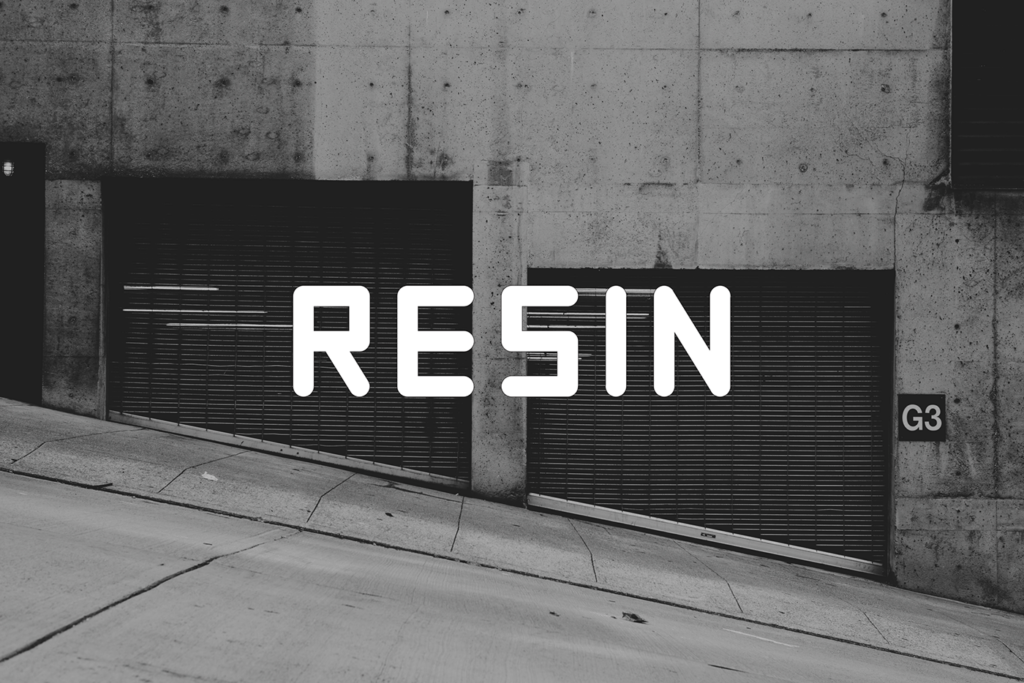
RESIN is an all caps font inspired by industrial structures. With strong parallel lines and uniform circular edges, it resembles the pipelines found at processing plants. Much like industrial structures, RESIN also adheres to strict rules and parameters such as being built with strict accordance to the golden ratio.